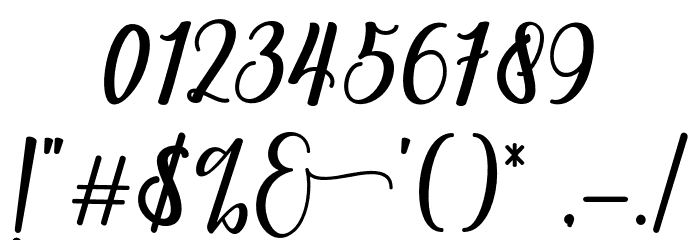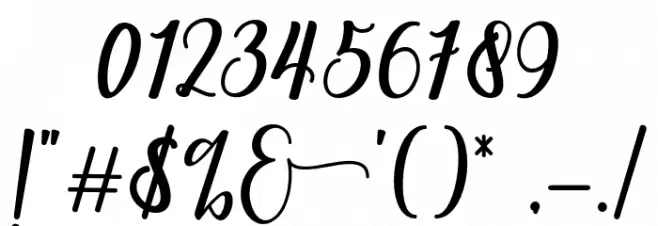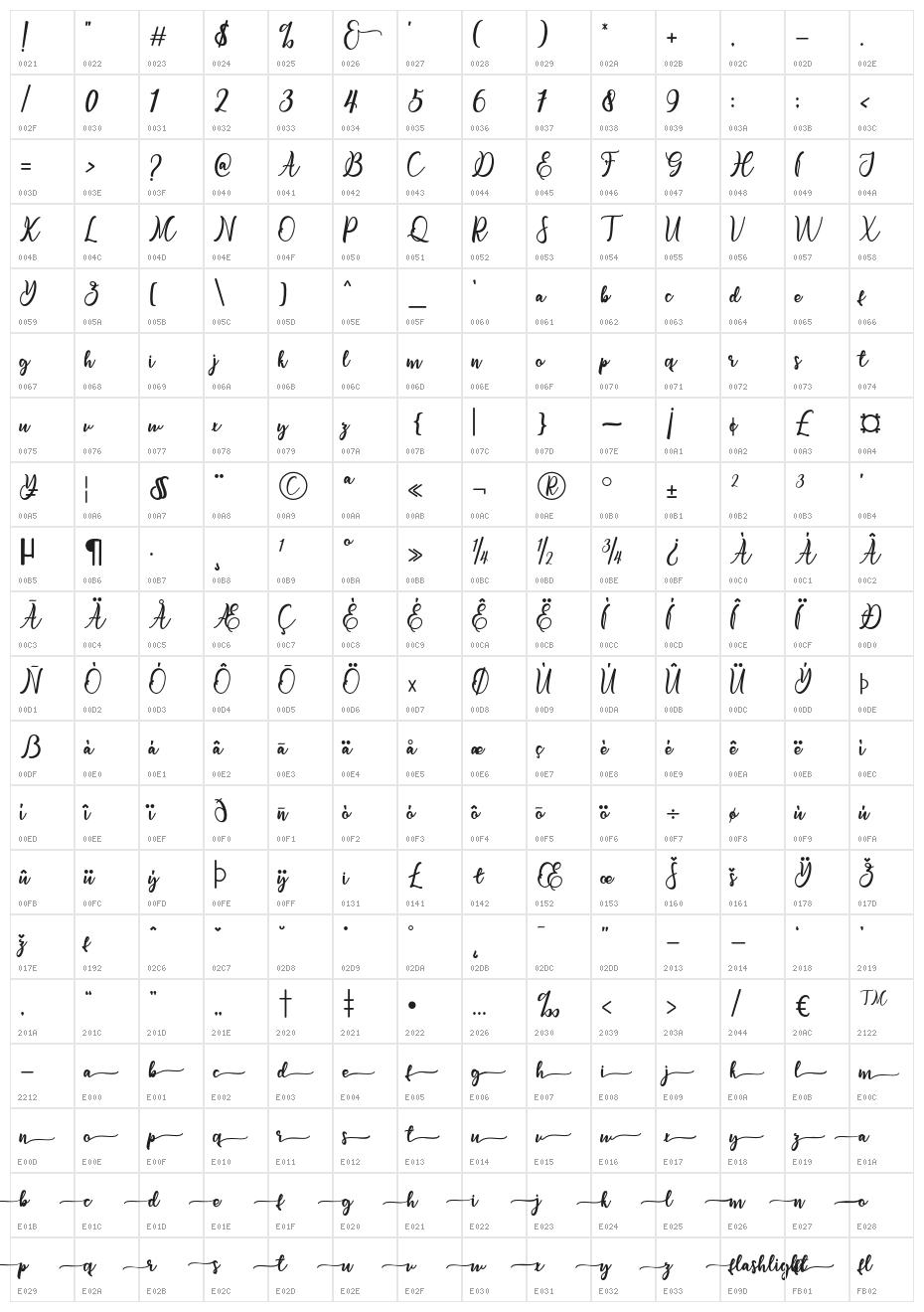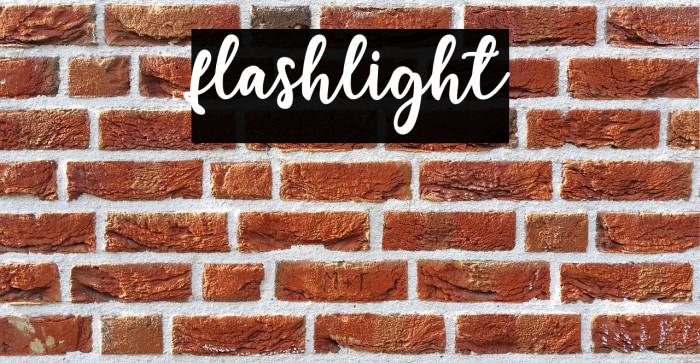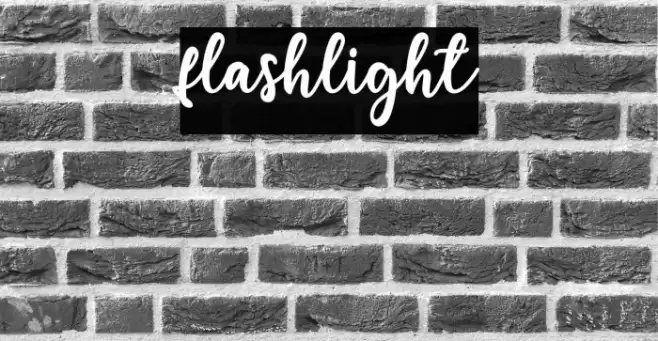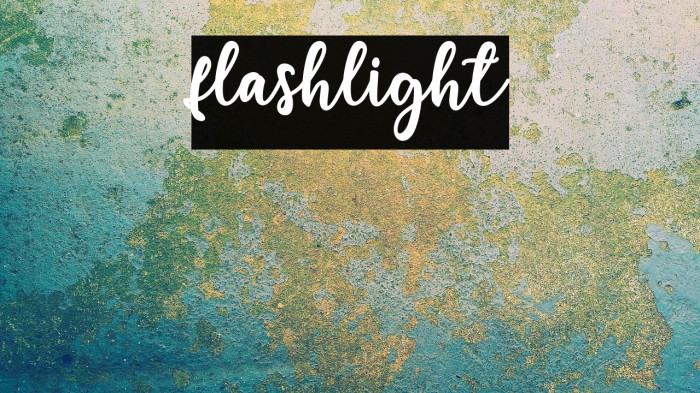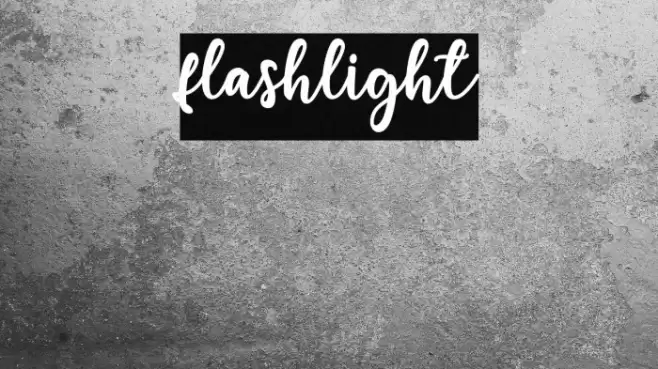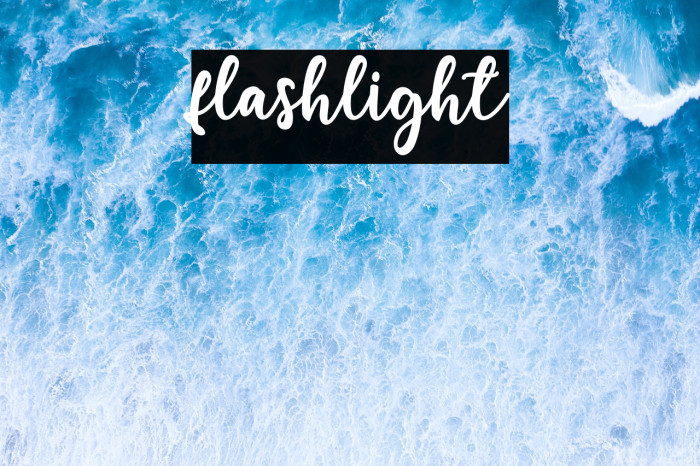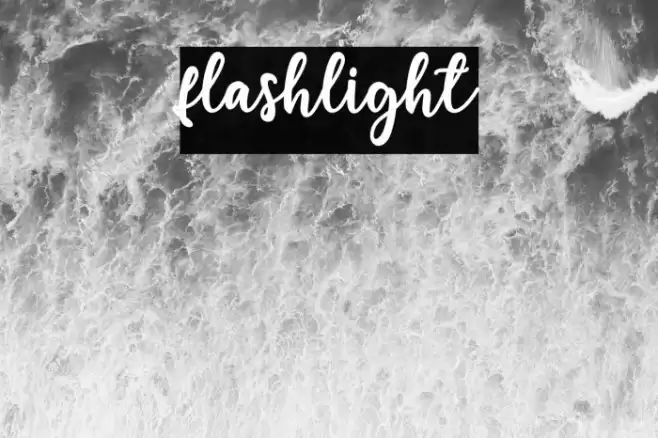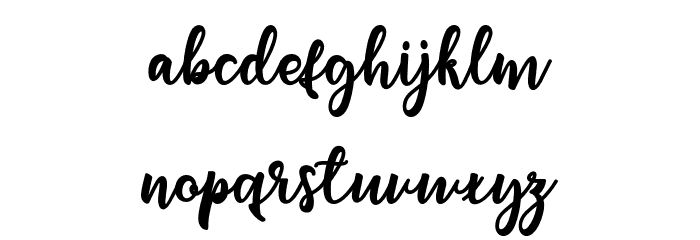
flashlight Font
flashlight Description
This font features a flowing, cursive style that exudes elegance and sophistication. The uppercase letters are bold and ornate, with sweeping curves and flourishes that give them a dramatic flair. The lowercase letters maintain a consistent flow, with smooth connections between characters, enhancing the script's fluidity. Numbers and special characters are designed with the same attention to detail, ensuring a cohesive look throughout. The overall appearance is both decorative and legible, making it suitable for a variety of creative applications. Its unique style is perfect for projects that require a touch of elegance and personality.